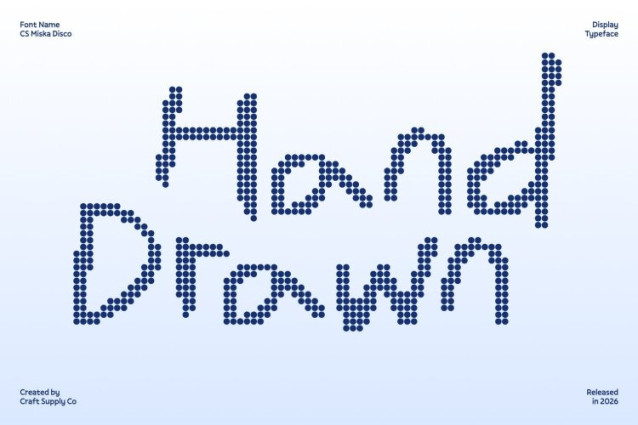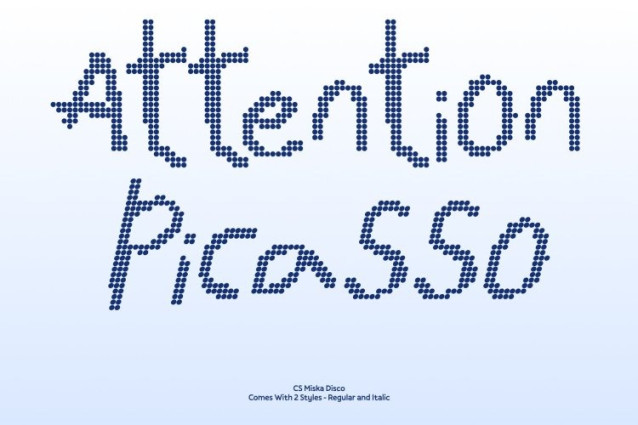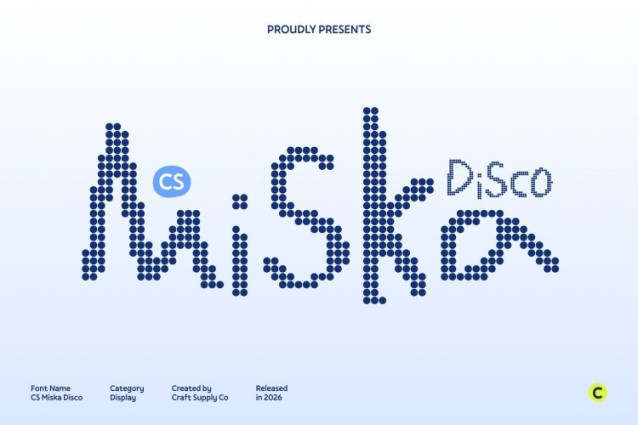
CS Miska Disco Font – This transforms its gritty, messy handwritten style into a vibrant dotted display inspired by disco lights. The irregular, freely drawn strokes are now formed with playful glowing dots, creating the feeling of lively lights dancing across every letter. The result is a font that feels spontaneous, energetic, and bursting with cheerful party vibes.
Irregular Shapes with Luminous Personality
The uneven, scribbled forms remain full of character, but the dotted construction adds a shimmering texture that enhances the playful chaos. Each letter looks lively and animated, bringing movement and rhythm to the page like a dance floor filled with flashing lights.
Playful Energy for Vibrant Designs
With its messy charm and radiant disco accents, this font injects bold personality into any layout. The expressive shapes make designs feel youthful, creative, and full of fun, turning simple words into eye-catching visual highlights.
Perfect for Creative and Joyful Projects
This font shines in children’s posters, party invitations, playful branding, packaging, social media graphics, and experimental design layouts. It’s ideal for projects that celebrate imperfection, creativity, and energetic expression.